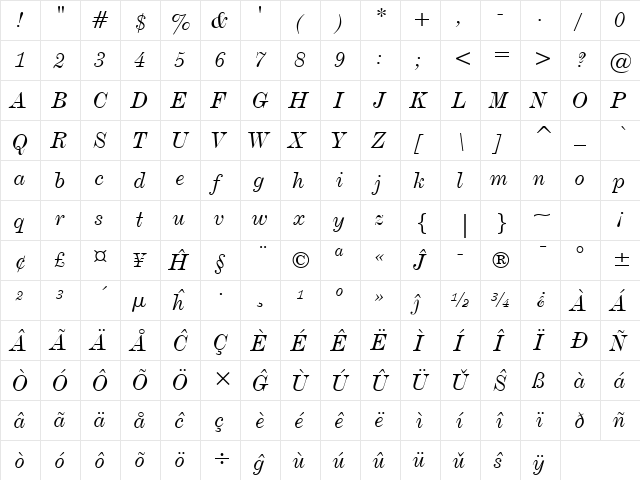
DeVinne BT Eo Italic Font Preview
DeVinne BT Eo Italic
Design Context for DeVinne BT Eo Typeface
DeVinne BT Eo offers clean, dependable letterforms without strong stylistic allegiance, making it a practical choice for designers who need flexibility. The dynamic lean of this cut emphasises speed and emphasis in any layout.
Pro Tip: Try DeVinne BT Eo for annotation and caption copy alongside an upright companion — the contrast in angle creates a dynamic but ordered typographic system.